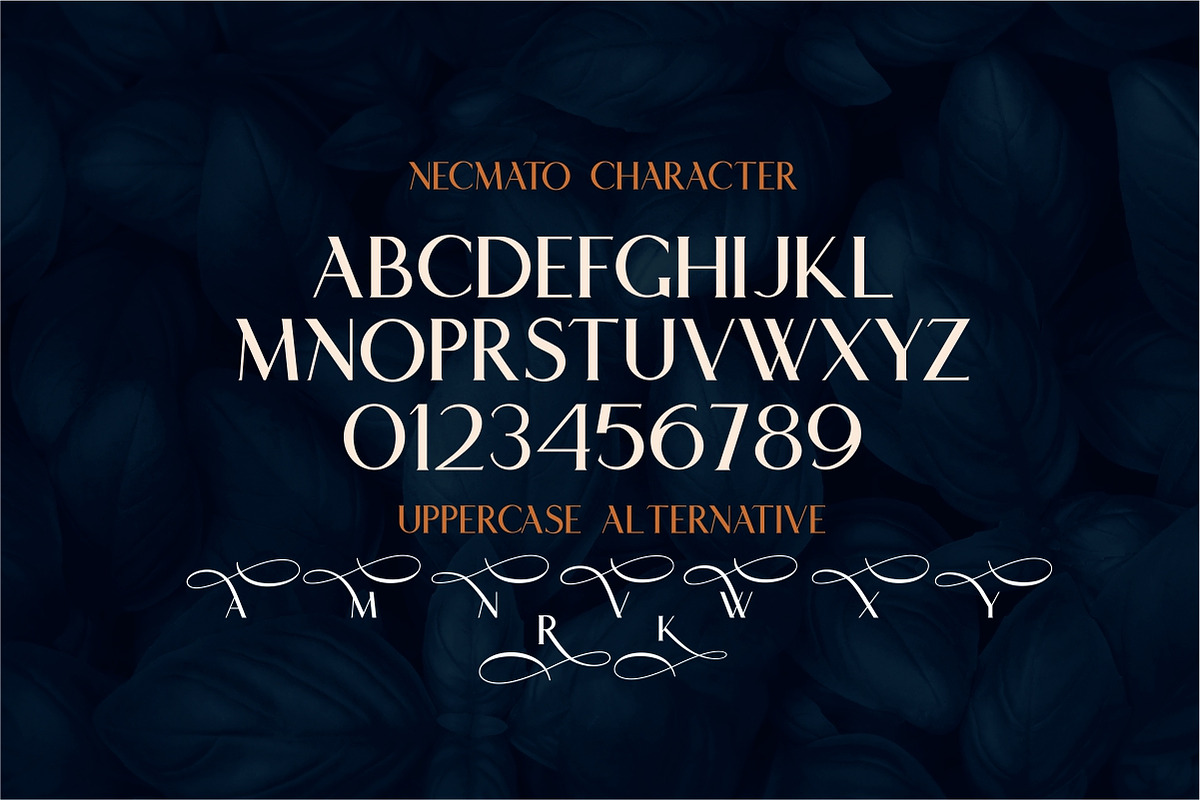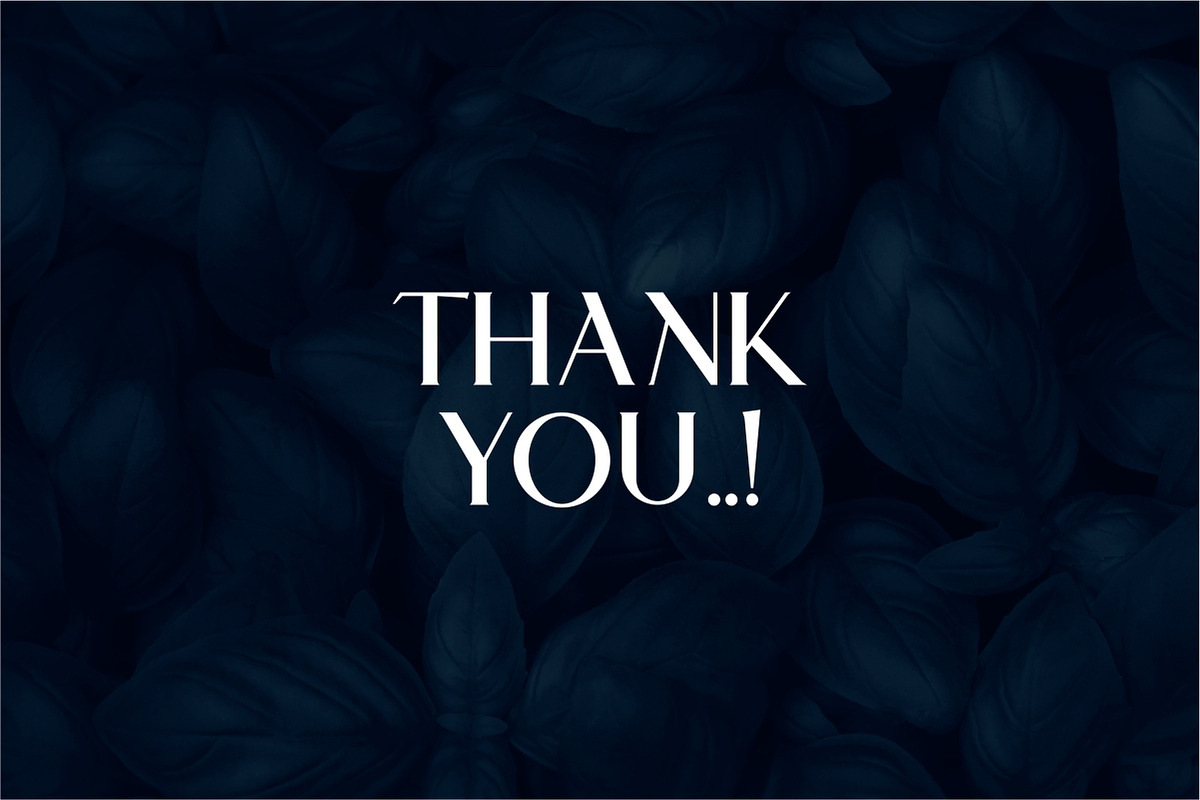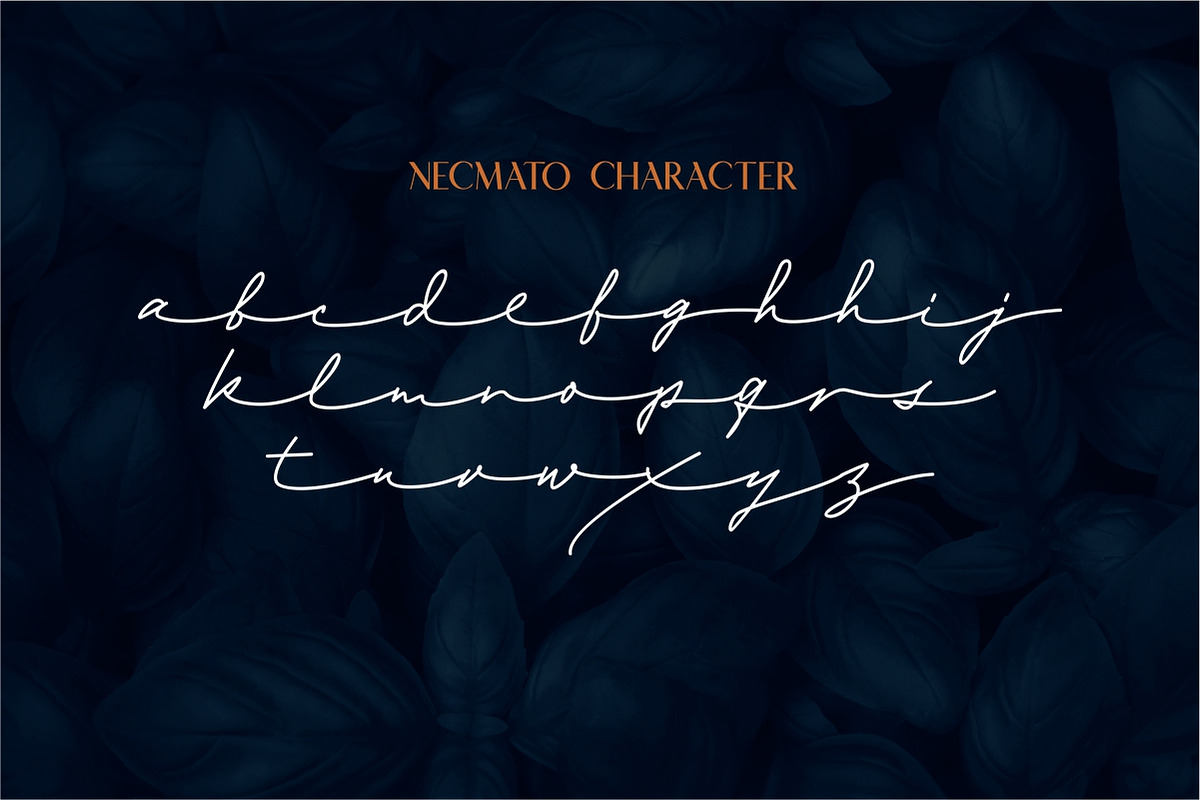
Necmato Art Deco Feel
Necmato is a Allcaps Classic & Elegant Looking Necamto have two font regular and italic version Necmato font Could be used for any project from Art Deco to Modern era.
Necmato perfect use for logos, print, collage, body text, and more! It looks minimalist a really cool modern-meets-vintage look to any piece.
- Uppercase letters
- Numbers + punctuation